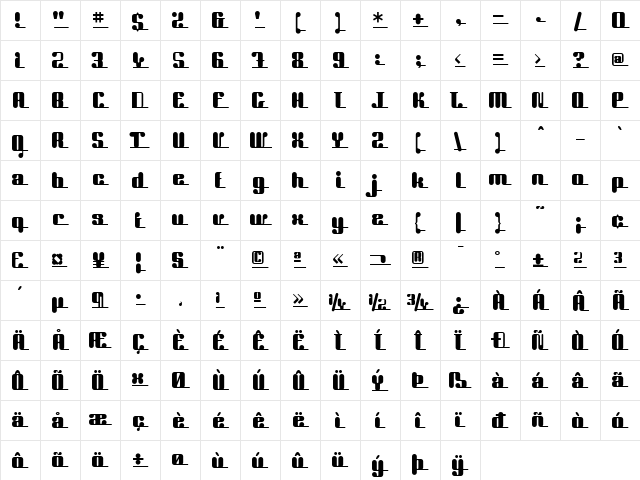
UniteTogetherICG Medium
Design Context for UniteTogetherICG Typeface
UniteTogetherICG is a composed and adaptable typeface that performs quietly and consistently across a wide range of design contexts.